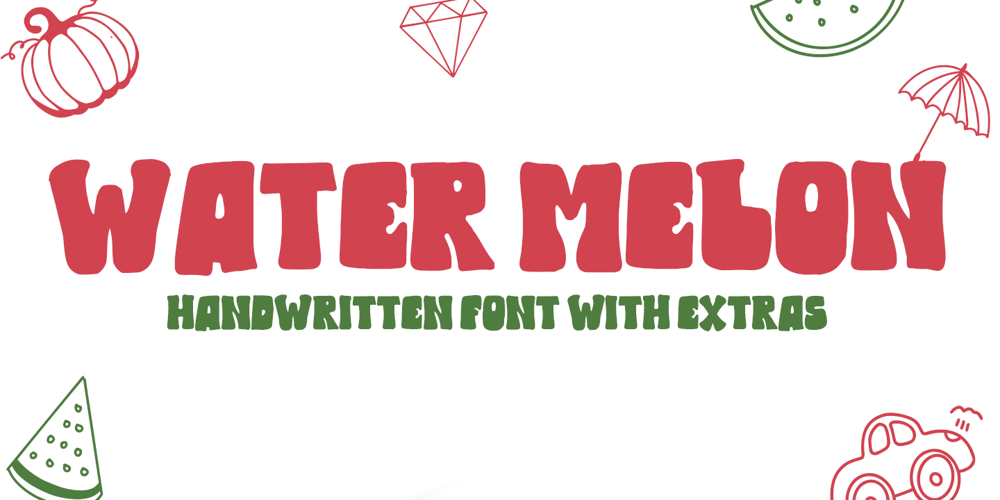
Water Melon
Water Melon font
Water Melon Font Family was designed by Andri Kurniawan and published by Struggle Studio. Water Melon contains 2 styles and family package options. Water Melon – with Extras is a fun and charming display font. It embodies playfulness and originality and is the perfect choice for children’s or parents’ activities and school projects, clothing, food posters and birthday cards.